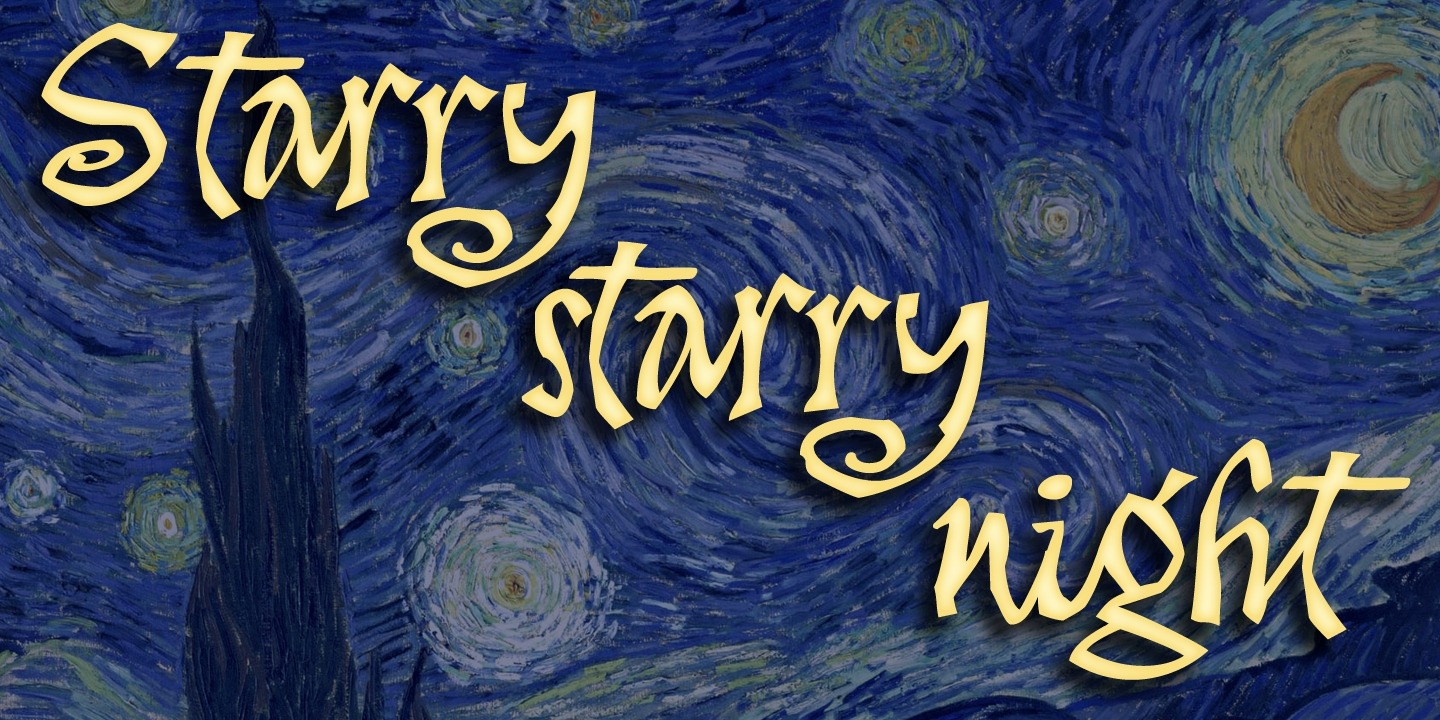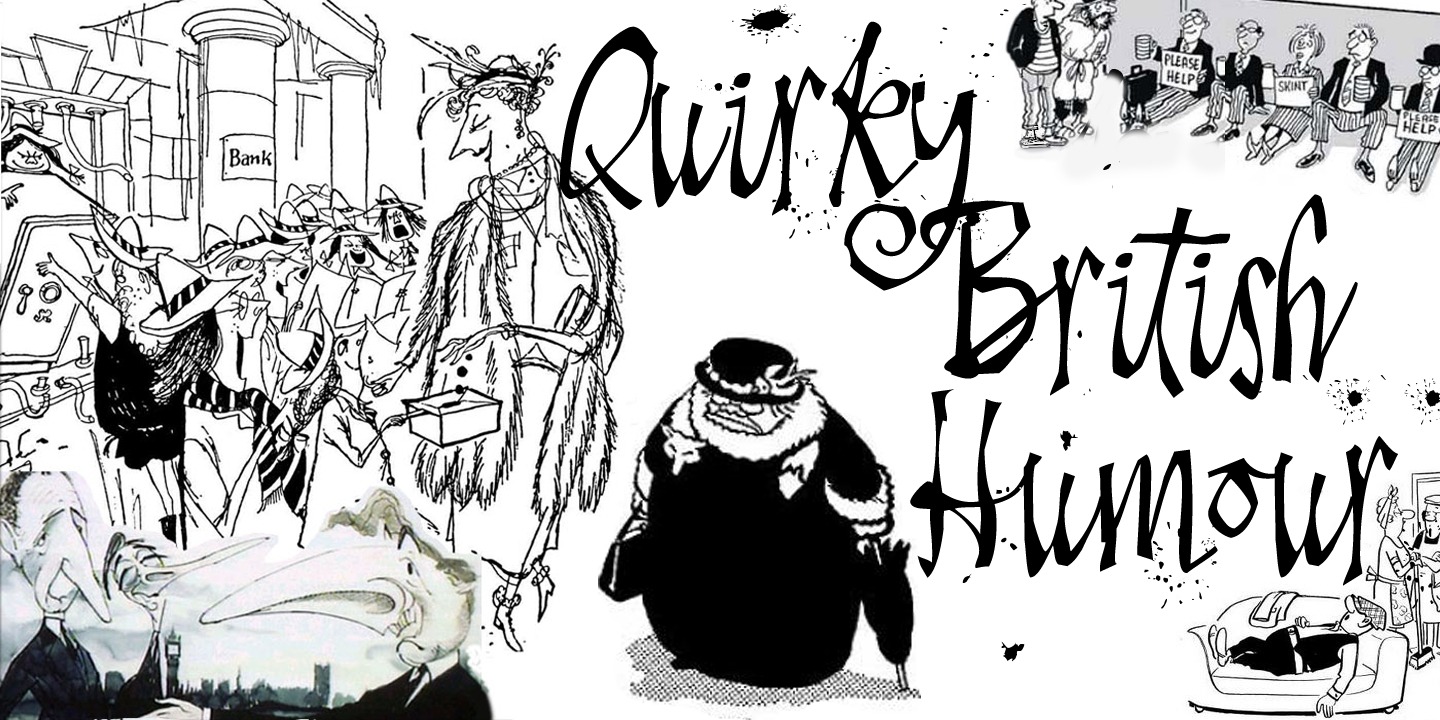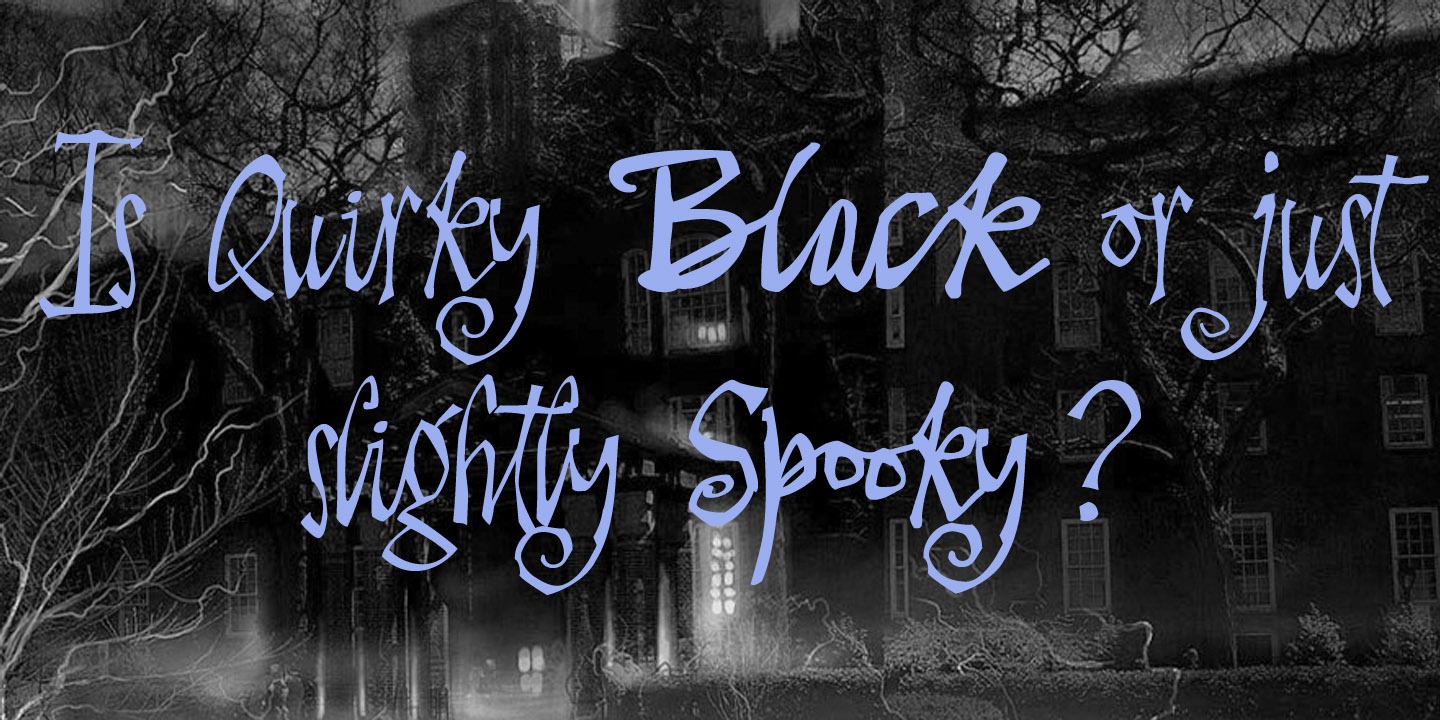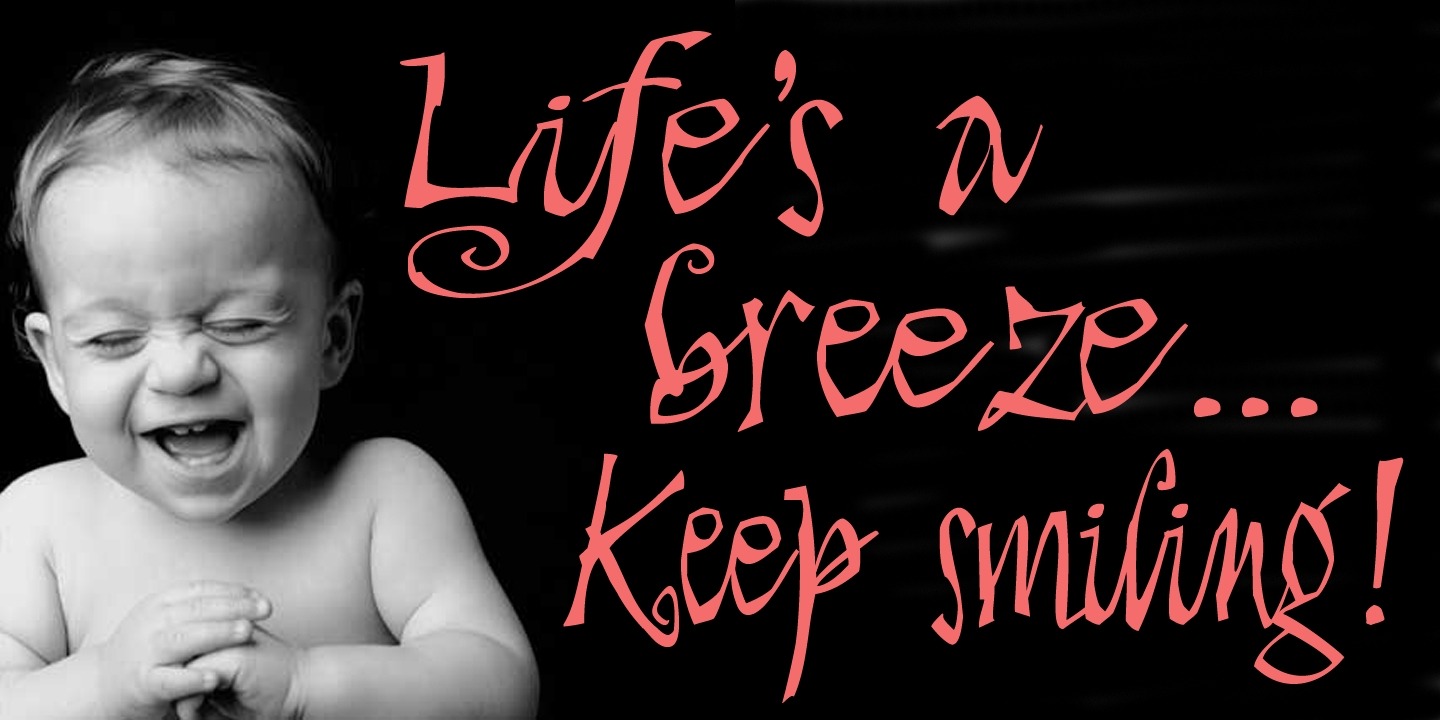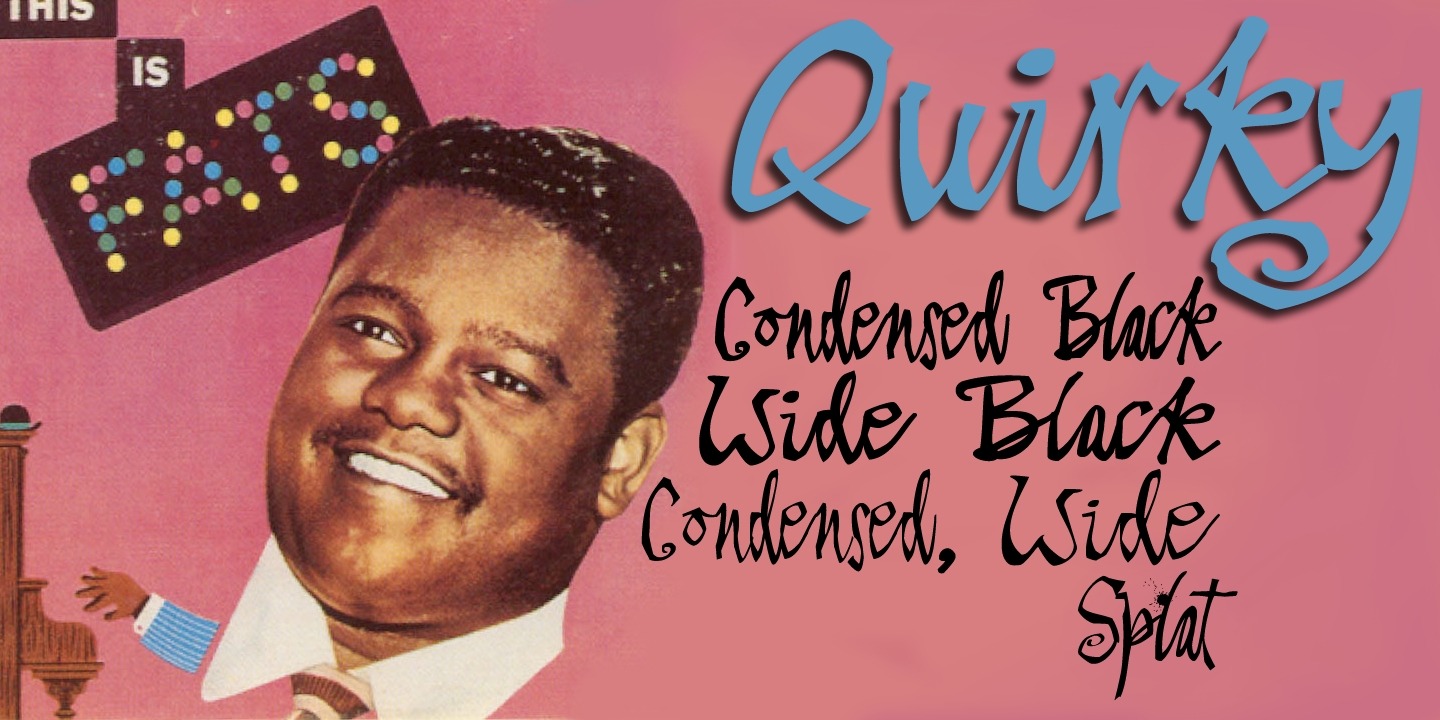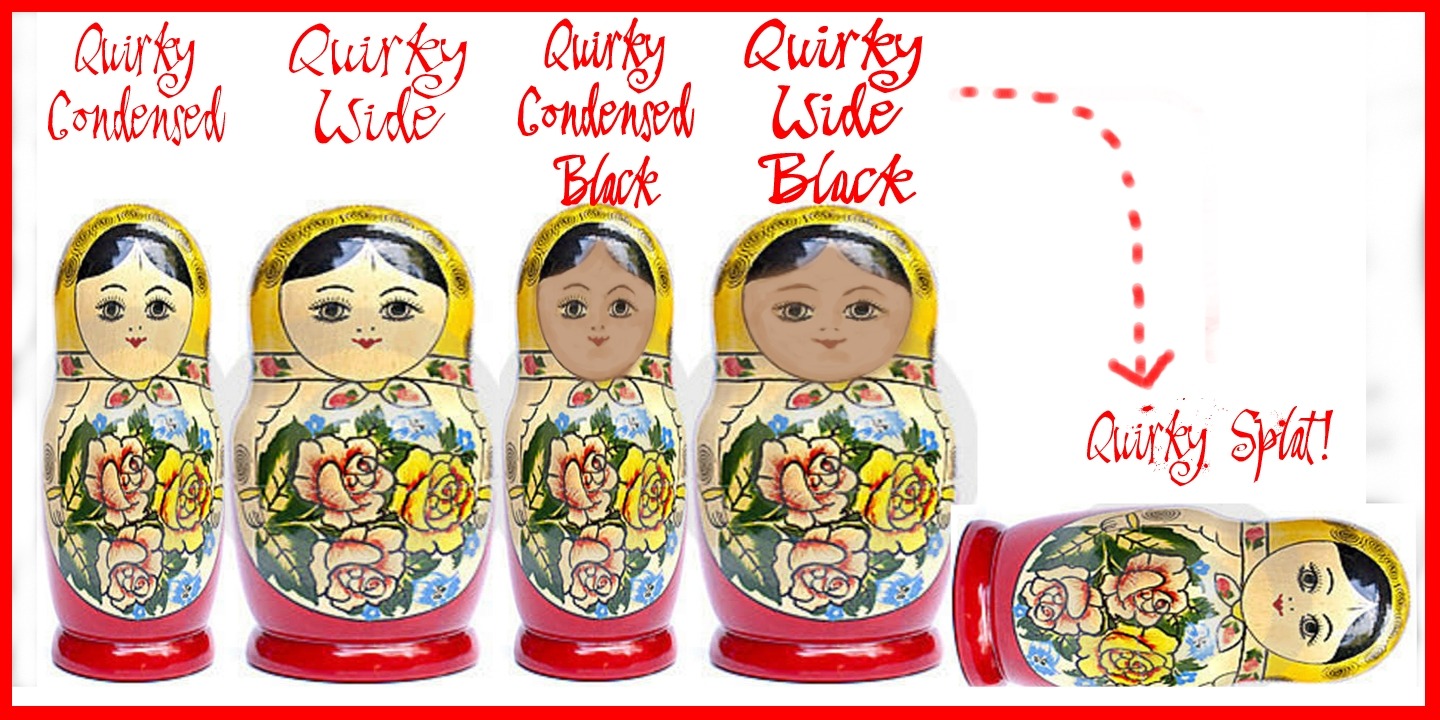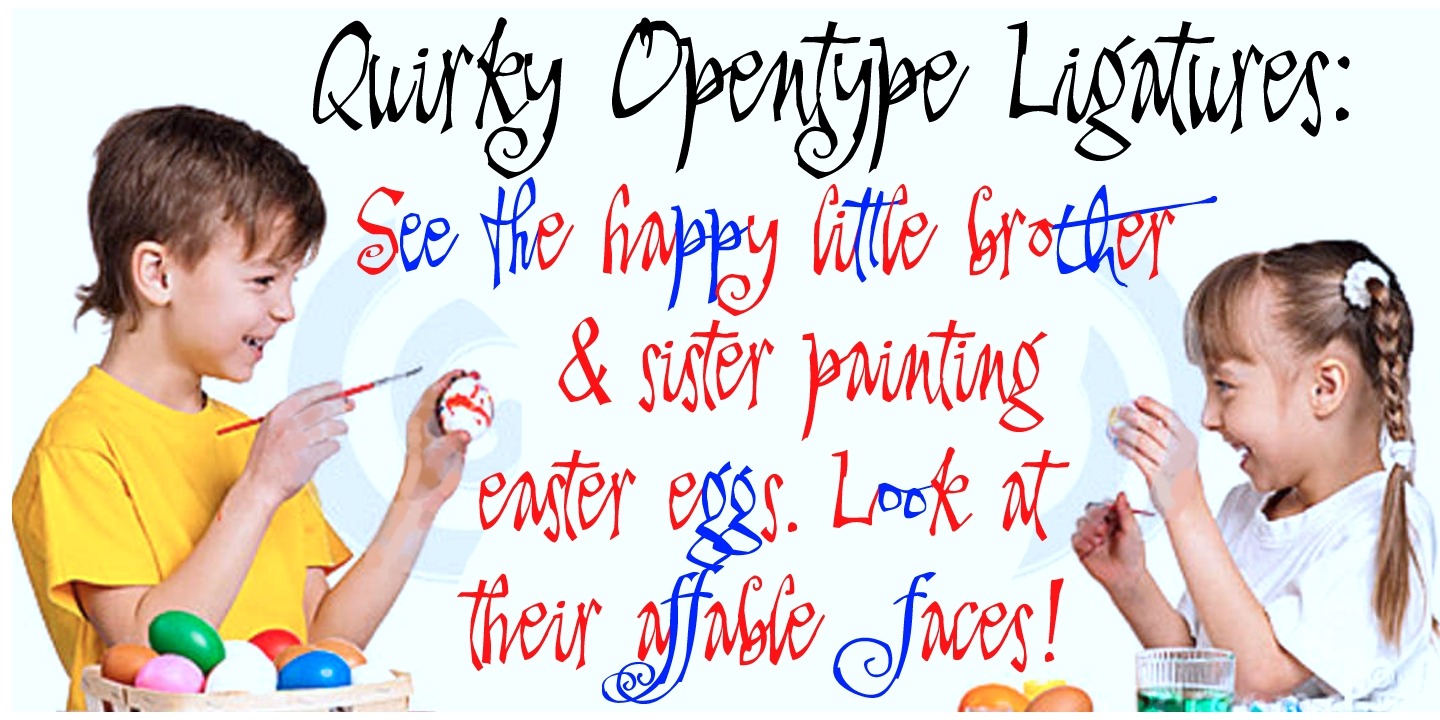
Quirky
Font Family by Scholtz Fonts
The idea for Quirky was born while I was looking at a book of etchings by British artist Graham Clarke. His signature, crawling spider-like across the page, fascinated me with its casual, almost messy, inky dark and light drama. I started scribbling the alphabet as I imagined he would write it, based on his signature, then continued, adding curls, making the characters more angular, and refining the dramatic play between dark and light. Finally, Quirky appeared. Apparently casual, Quirky is, in fact, a true connected script.
Quirky is characteristic of contemporary handwriting: It appears loose, angular, unstructured, and free, while maintaining good form and legibility. Its baseline is varied, creating an impression of impatient handwriting, without losing legibility.
Use Quirky for advertising, for humorous greeting cards, for a funky fashion look or tongue-in-cheek spooky media.
Quirky is a fully professional font with extensive use of OpenType Ligatures. For example: most common double letter combinations such as ?ee? are rendered as two, slightly different shaped "e"s. This variation in letter shapes removes the cues by which the reader identifies that he is viewing a FONT and thus conveys a strong sense of hand-lettered text.
Quirky Wide Black
Quirky Wide
Quirky Condensed Black
Quirky Condensed
Quirky Splat